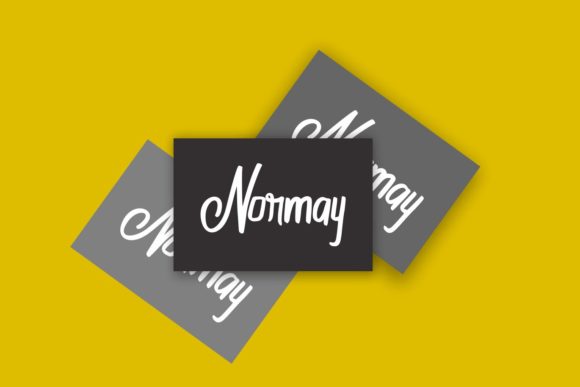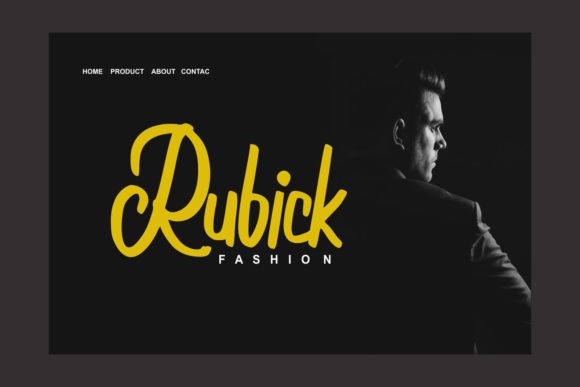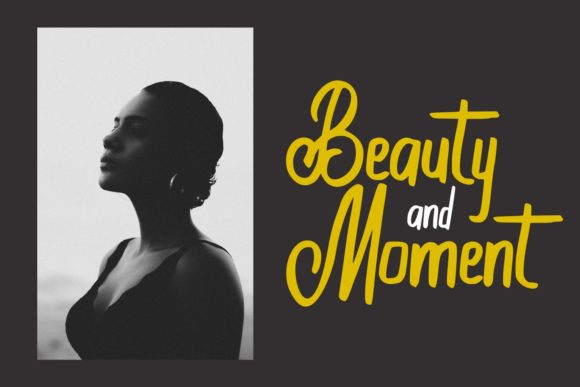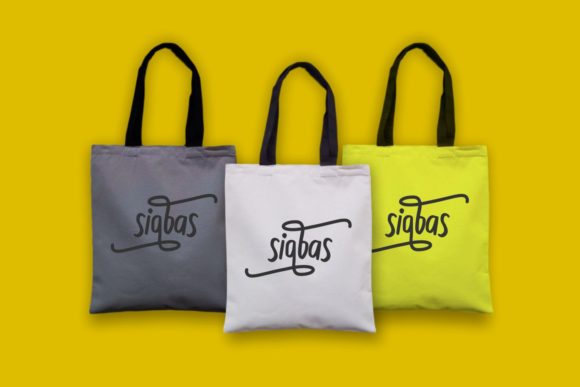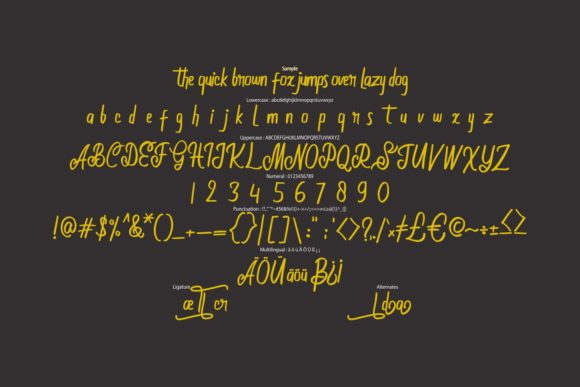
Introduction to Moolland Font
As a designer, you know that moment when you’re brainstorming ideas for a new project, and suddenly, the perfect font pops into your head. It’s like a ray of sunshine on a cloudy day. For many creatives, that moment is exactly what happened when they stumbled upon the Moolland Font.
With its unique calligraphic style, Moolland Font is a game-changer for designers. Whether you’re working on greeting cards, branding materials, business cards, quotes, or posters, this font is sure to elevate your design to the next level. Its high-quality design and transparent background make it a valuable resource for any creative project.
Key Features of Moolland Font
- Includes a comprehensive set of characters and glyphs for professional use
- Unique characteristics: modern, clean design with a subtle flair, making it perfect for branding and identity projects
Honest Review: Moolland Font
As a designer, I’m always on the lookout for high-quality design resources that can elevate my creative projects. Recently, I had the chance to try out the Moolland Font, and I’m excited to share my honest review.
- ✨ The Moolland Font has a beautiful, modern design that’s perfect for a wide range of creative projects.
- ✨ The font is highly customizable, with a transparent background that makes it easy to layer and combine with other design elements.
- ⚠️ The font is only available in a limited number of weights, which may not be ideal for designers who need a more comprehensive font family.
Overall, I’m impressed with the Moolland Font’s potential as a design resource. While it has some limitations, its high-quality design and transparent background make it a great choice for many creative projects. If you’re looking for a modern, customizable font that won’t break the bank, the Moolland Font is definitely worth checking out.
Moolland Font is a versatile design resource that can be used in a variety of creative projects. Use it for branding, logos, business cards, or any other design where you want to add a touch of elegance and sophistication. For the most effective use of Moolland Font, keep your design simple and uncluttered, allowing the font to be the focal point. You can also use it to create a consistent look across multiple design elements.